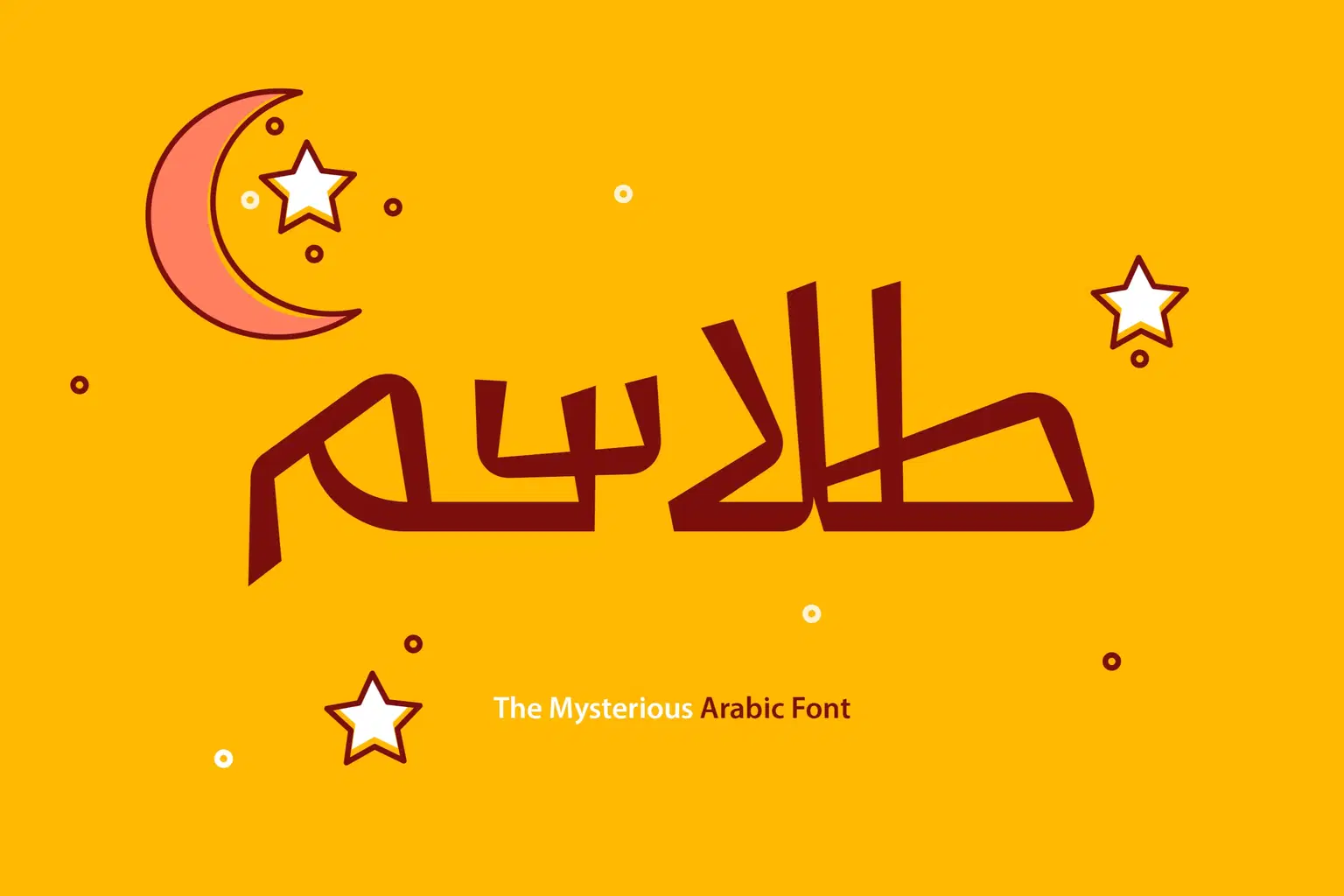
Talasem (Arabic for ‘Talismans’) is a display font with a contemporary design. It includes a stylistic set of glyphs with extraordinary letterforms that convey both puzzling and mysterious impressions. Talasem is well-suited for a wide range of modern projects, including web, print, and mobile applications.